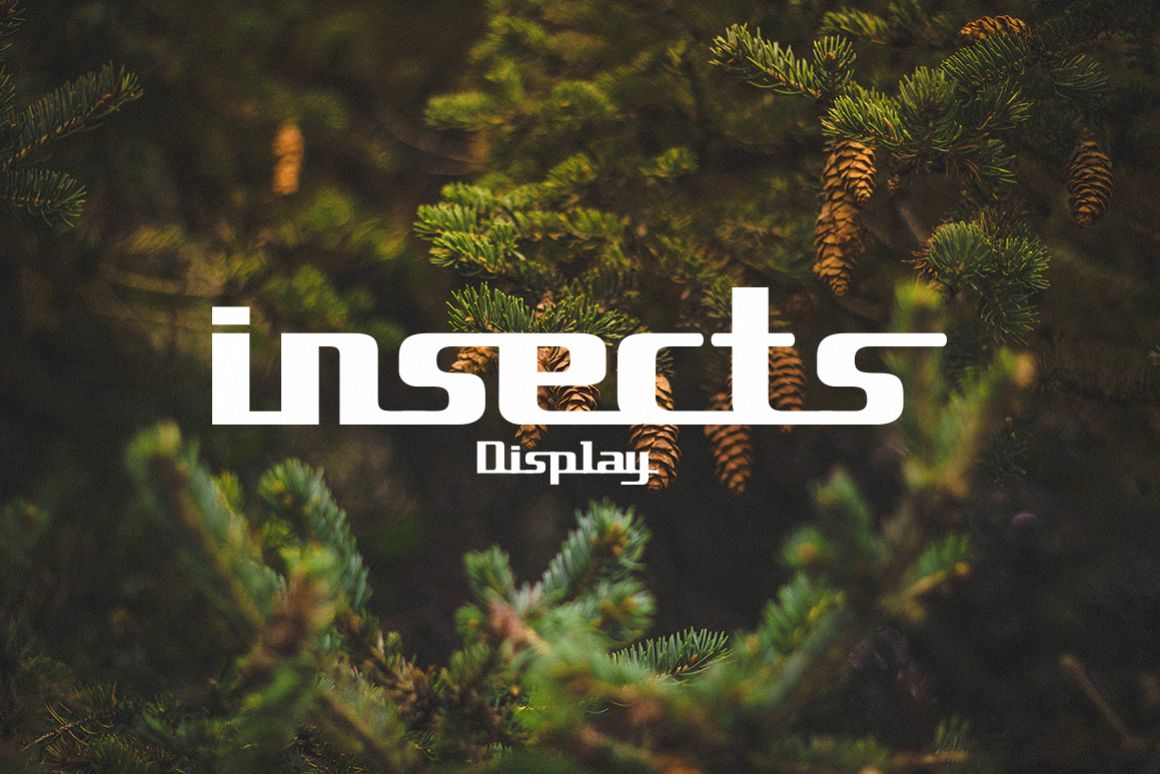
insects font
New Present insects font
insects font is a smooth hand Display, modern style Display, which was created to meet the needs of your next design project.
insects font, Can used for various purposes. such as the title, logo, correspondence, letterhead, signage, labels, newsletters, posters, badges, t-shirt, etc.
Comes with upper and lowercase characters, large set of punctuation glyphs, numerals, ligature, swash, and supports international languages. Stylistic alternates for several key lower case characters are also available, accessible in the Adobe Illustrator Glyphs panel.
Standard Character. ligature. swash